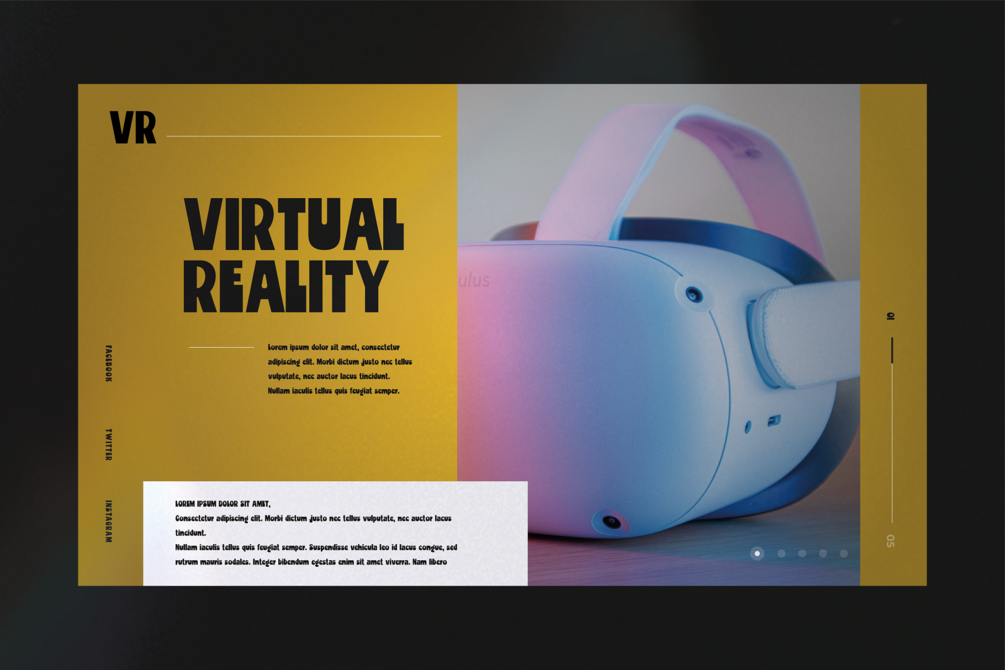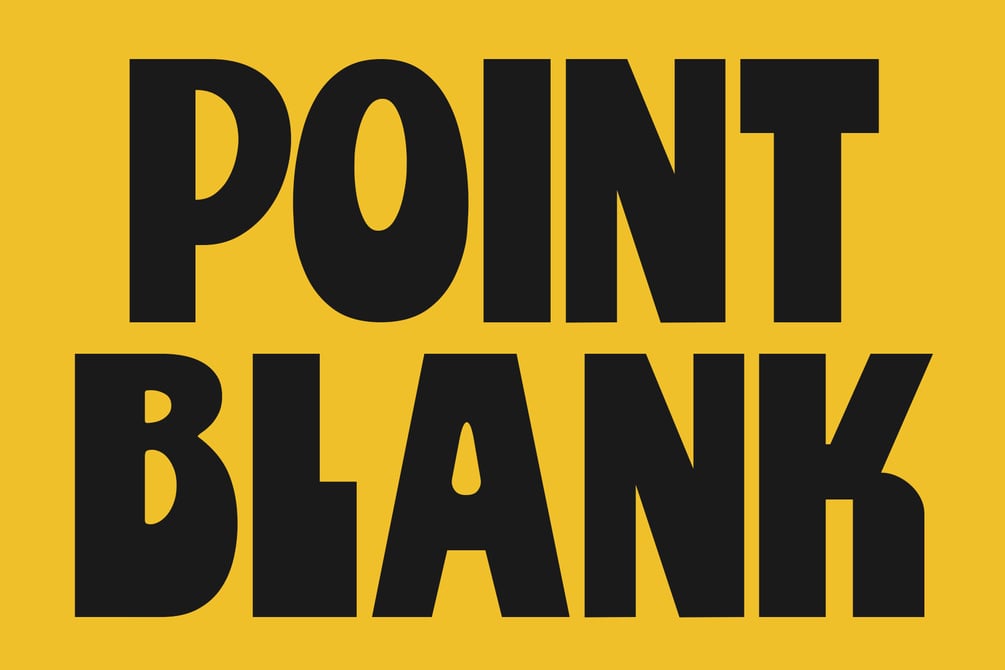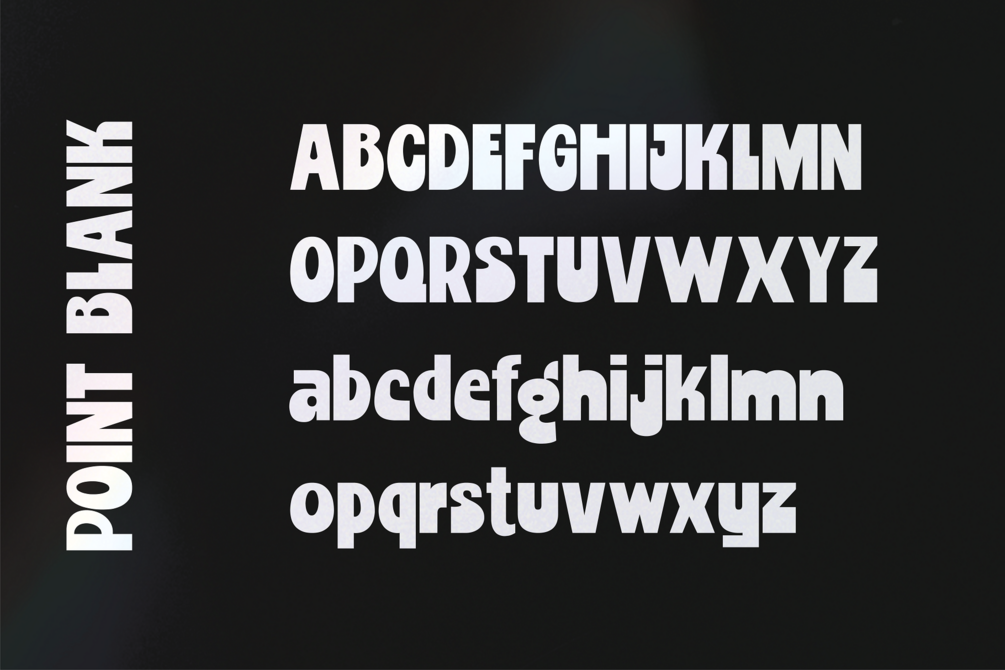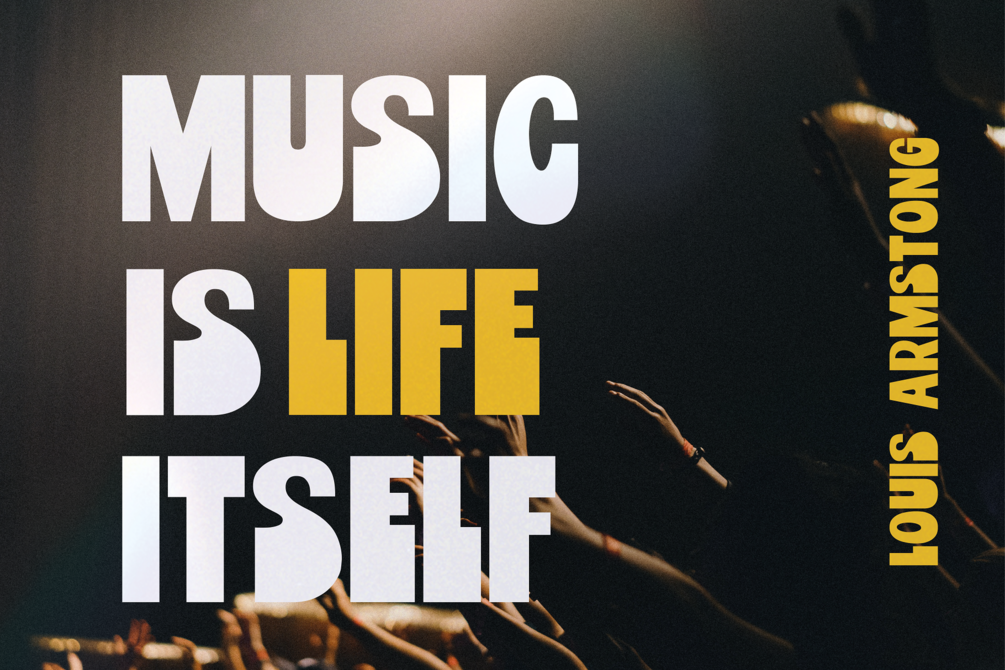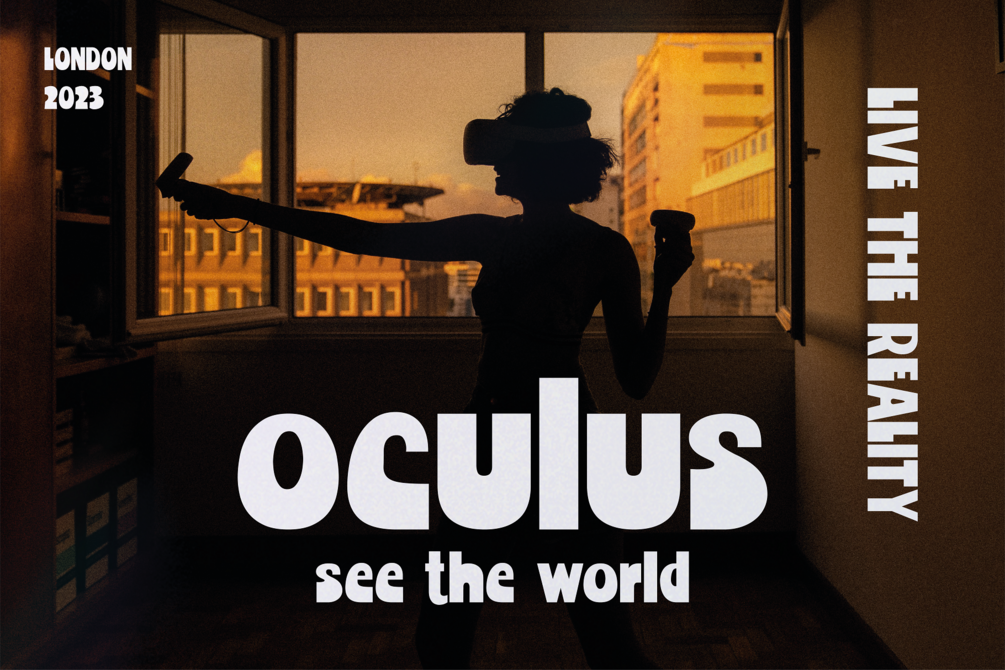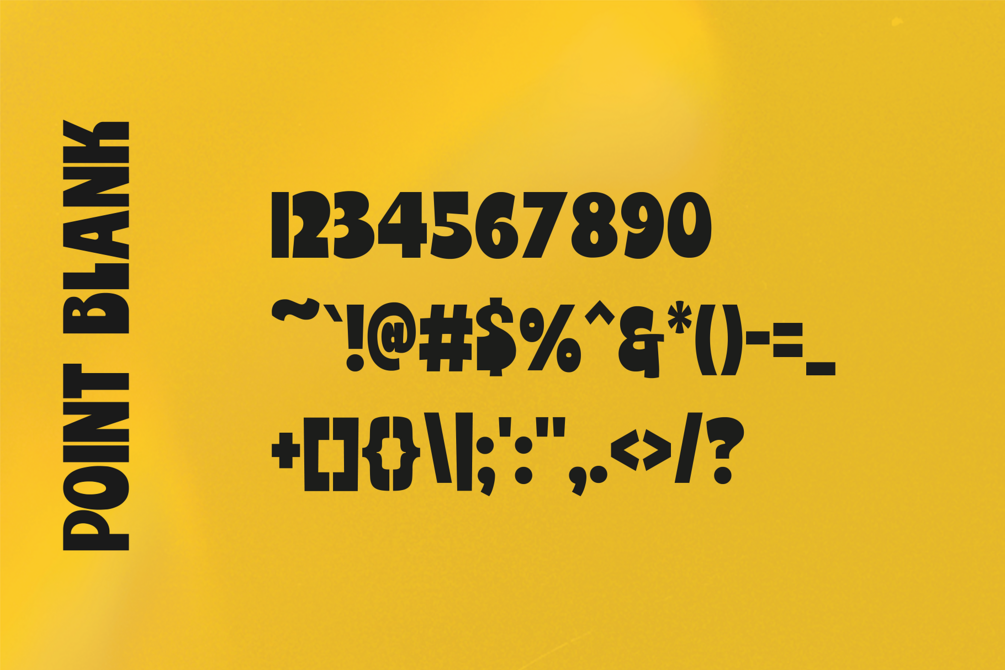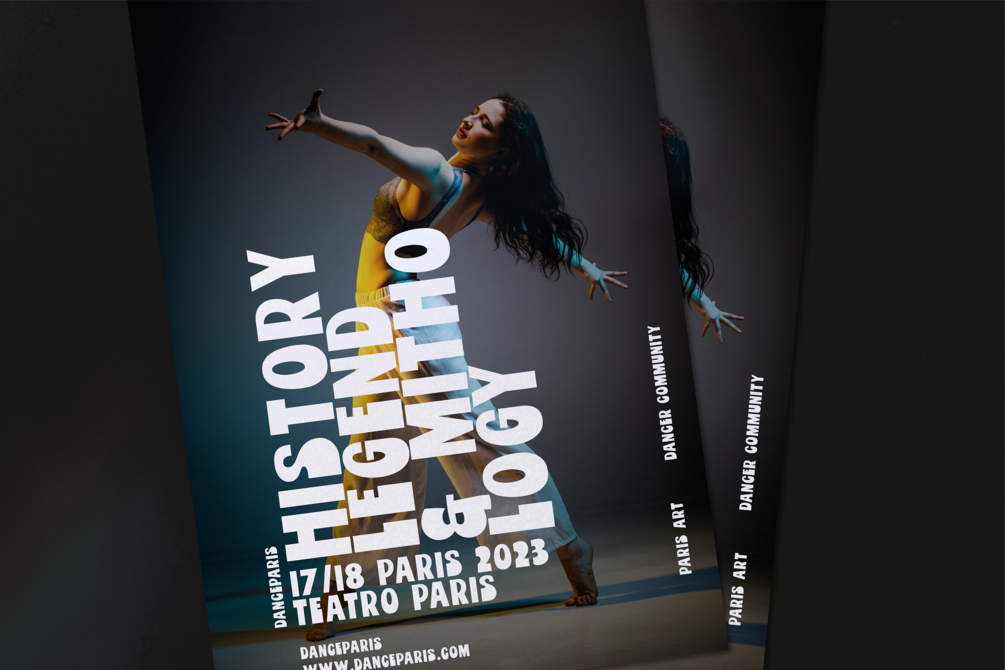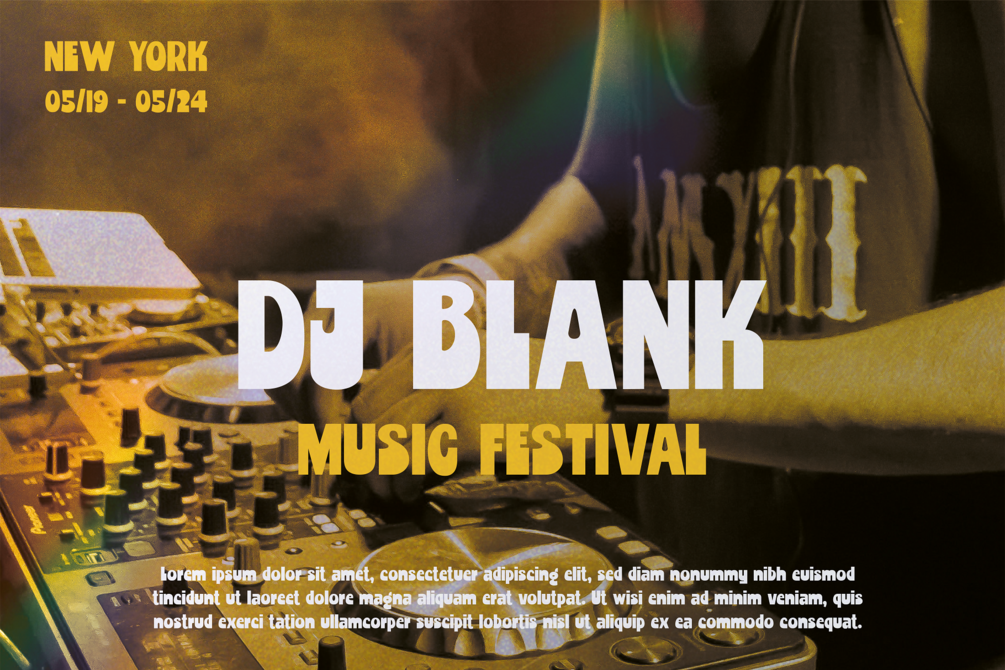
Point Blank - Display Typeface
Point Blank is a retro-inspired display font that takes us back to the groovy and funky style of the 1960s and 1970s. With big, bold, and chubby letterforms, this typeface is perfect for making a statement. Whether you're designing a poster, a logo, or a product label, Point Blank will add a touch of retro charm to your project.